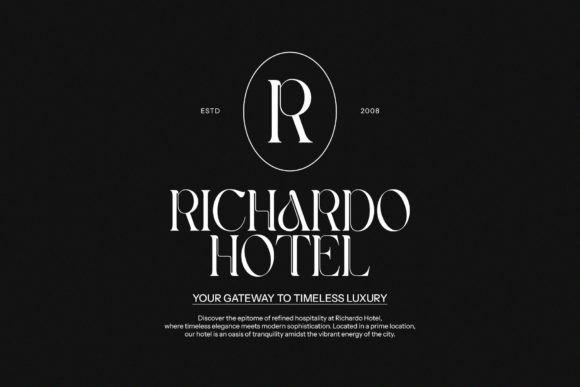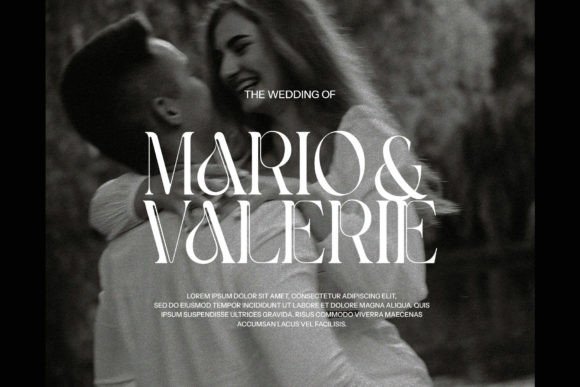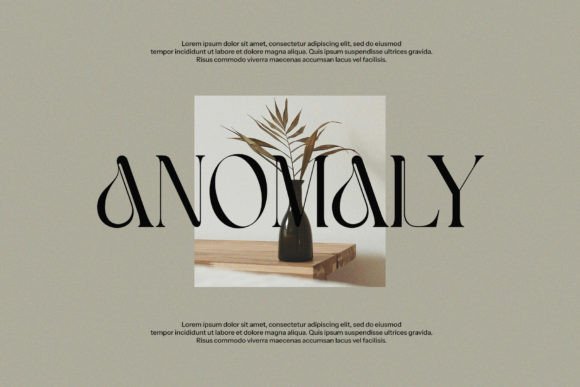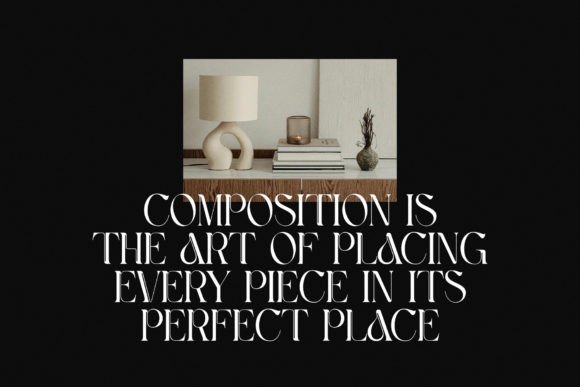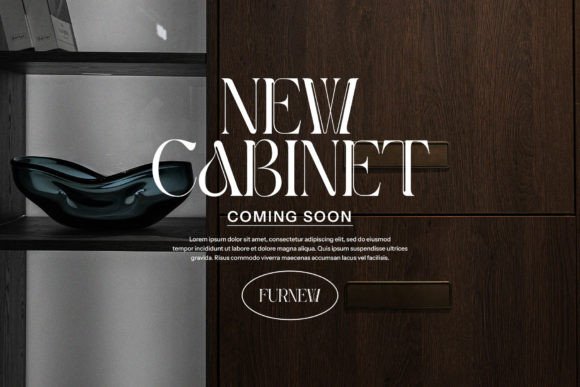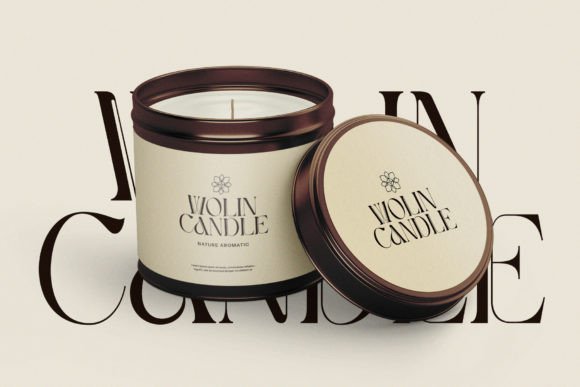
Introduction to Havko Font
As a designer, have you ever stared at a blank page, wondering which font will bring your creative project to life? For many of us, the perfect font can make all the difference between a good design and a great one. And that’s exactly what we’re about to explore – a game-changing font that’s sure to elevate your next project: the Havko Font.
This elegant serif font is more than just a pretty face – it’s a design resource that will add sophistication and class to any layout. With its clean lines and flowing curves, Havko Font is the perfect choice for designers who want to create high-quality visuals that pop. Whether you’re working on a brochure, a website, or a social media campaign, this versatile font is sure to impress.
Key Features of Havko Font
- High-quality font designed for creative projects, ideal as a design resource.
- Unique characteristics: modern aesthetic, clean lines, and professional feel, making it an excellent choice for branding and marketing materials.
Honest Review: Havko Font
I recently stumbled upon the Havko Font, and I must say it’s been a game-changer for my creative projects. As a designer, I’m always on the lookout for high-quality design resources that can elevate my work. The Havko Font definitely delivers.
- ✨ Beautifully crafted letterforms: The Havko Font features stunning, hand-crafted letterforms that add a touch of elegance to any design.
- ✨ Versatile: Whether you’re working on a branding project or a digital publication, the Havko Font is an excellent choice.
However, I do have a few minor complaints:
- ⚠️ Limited font weights: The Havko Font is only available in a few weights, which might limit its use in certain design scenarios.
Overall, I’m impressed with the Havko Font and would definitely recommend it to fellow designers. With its beautiful letterforms, versatility, and free download, it’s a valuable addition to any design arsenal. Just be aware of its limitations, and you’ll be all set for your next creative project.
Havko Font: A Versatile Design Resource
The Havko Font is suitable for a wide range of creative projects, including logos, business cards, and presentations. Its high-quality design and transparent background make it an ideal choice for designers and non-designers alike.
To get the most out of the Havko Font, experiment with different font sizes and colors to create visually appealing designs. The font’s high-quality design ensures that it looks great in both digital and print formats.